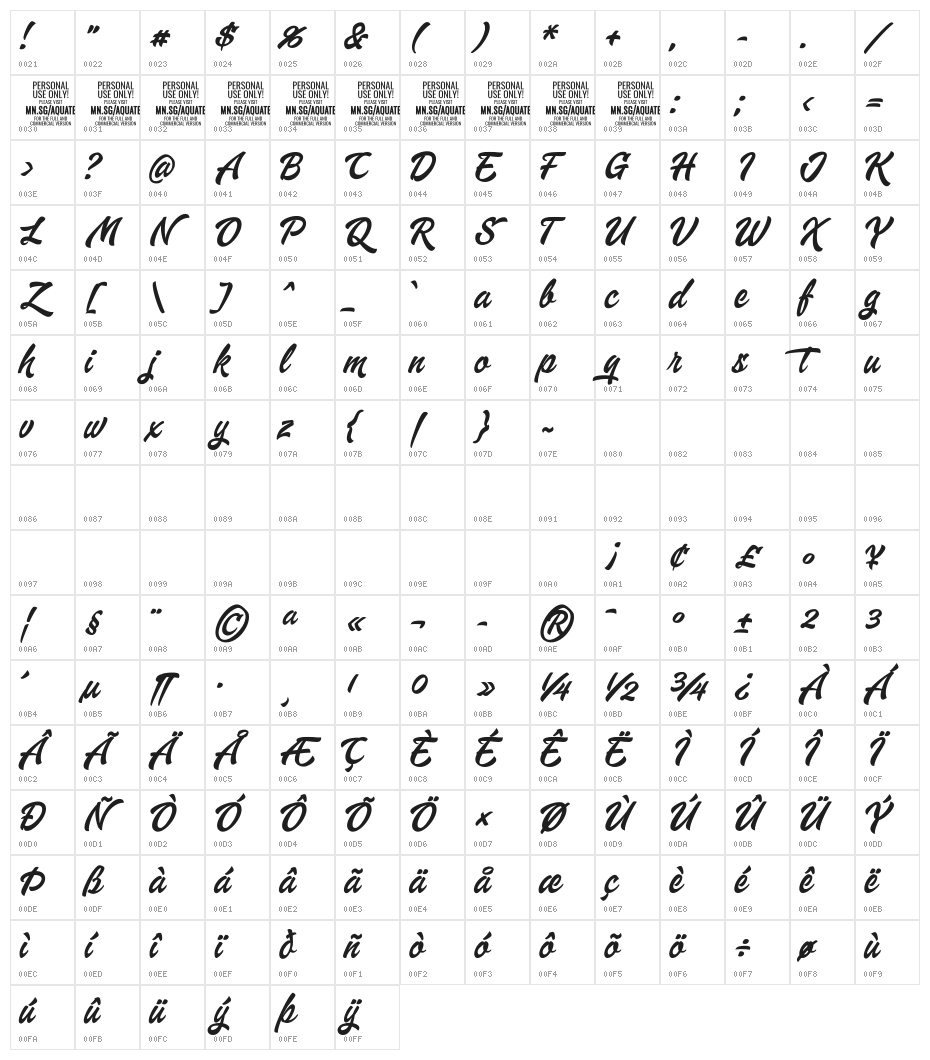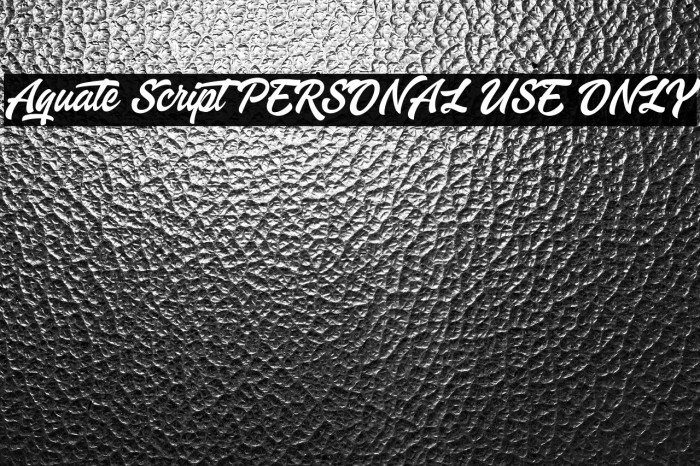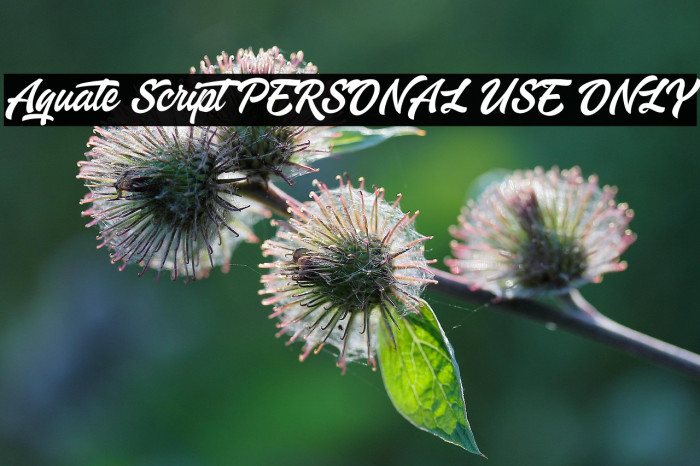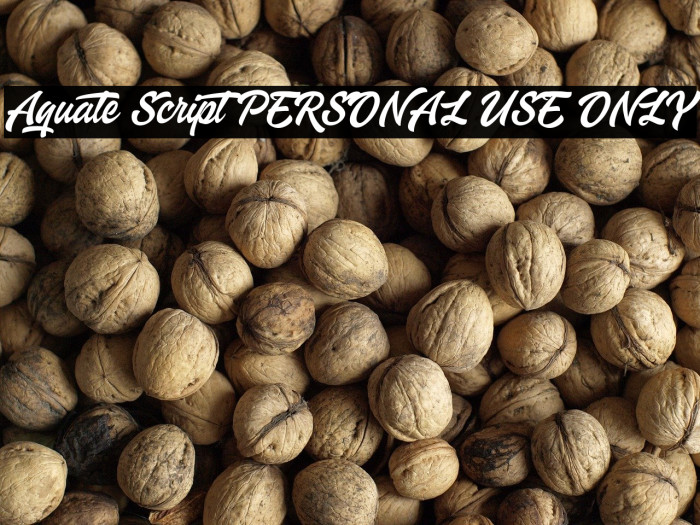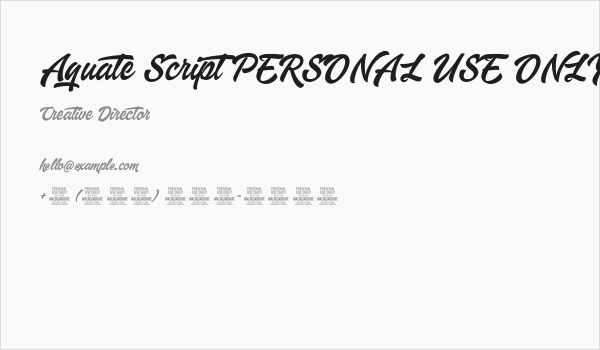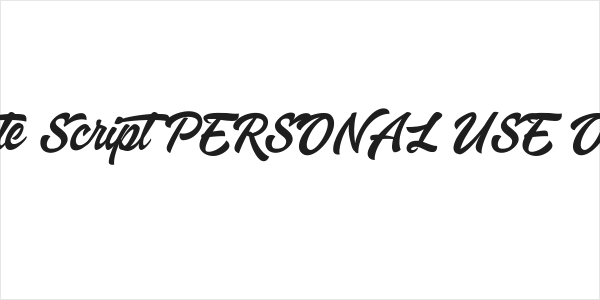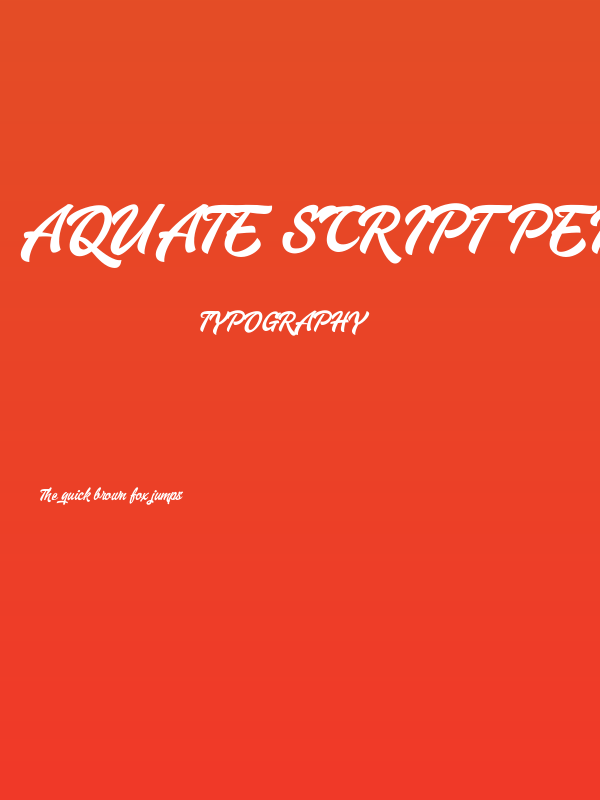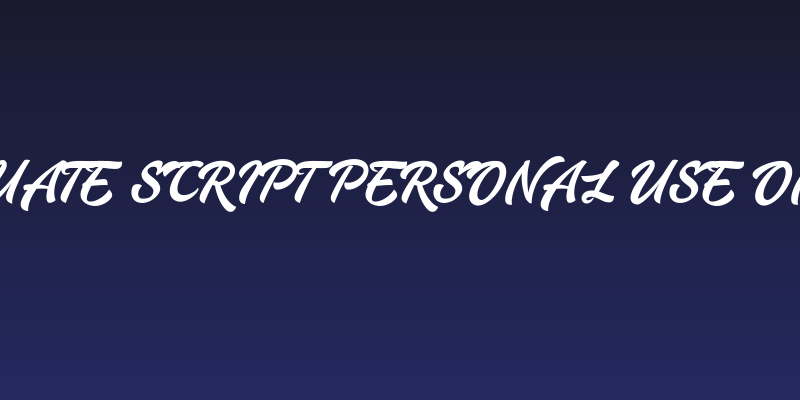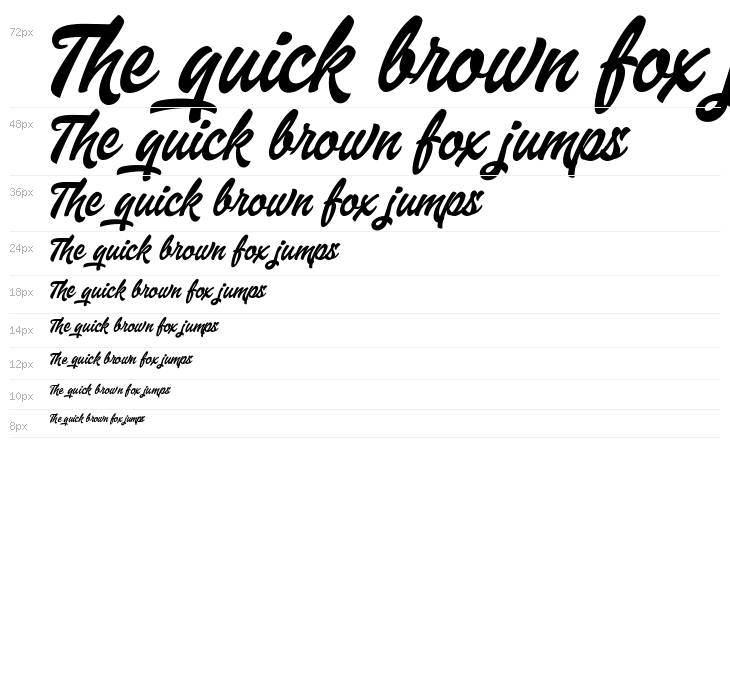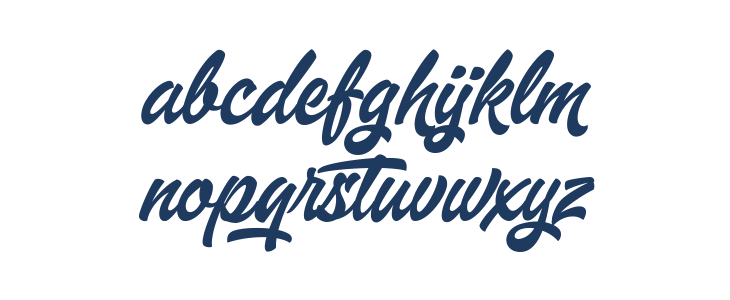
Aquate Script PERSONAL USE ONLY Font
Aquate Script PERSONAL USE ONLY Description
This font features a bold and flowing script style, characterized by its elegant and dynamic curves. The uppercase letters are slightly larger and more pronounced, while the lowercase letters maintain a consistent fluidity, creating a harmonious balance. The strokes are thick, providing a strong visual impact, yet the overall design retains a sense of grace and movement. The font includes a full set of uppercase and lowercase letters, numerals, and a variety of special characters, making it versatile for various design needs. Its handwritten appearance gives it a personal and artistic touch, suitable for creative projects.